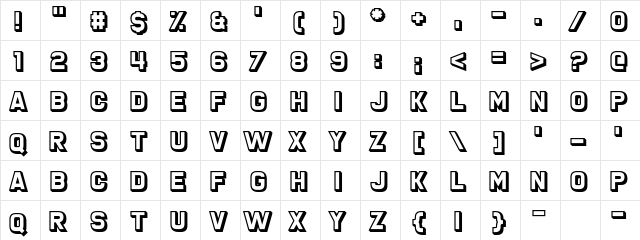
San Marino Beach Regular
| Designer | Allison James |
Design Context for San Marino Beach Typeface
San Marino Beach is a composed and adaptable typeface that performs quietly and consistently across a wide range of design contexts.